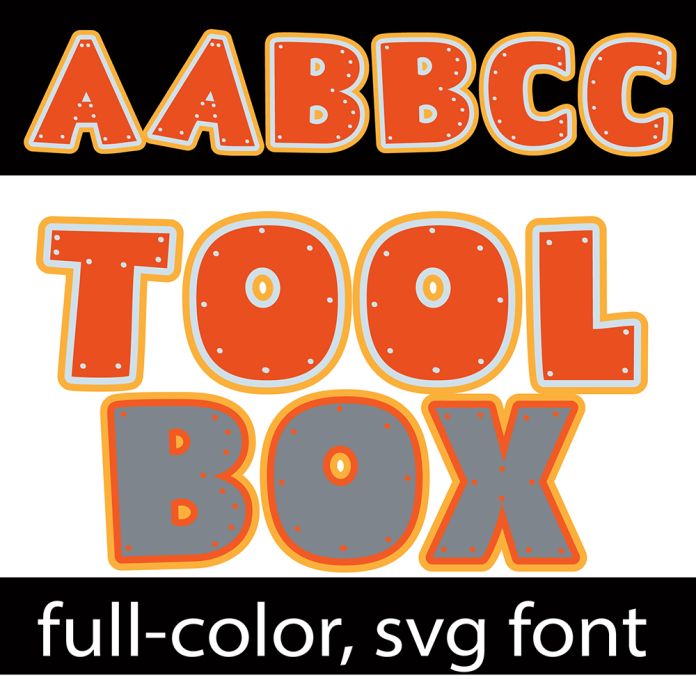
Toolbox Color Font
This full-color font in gray and orange has a toolbox look and feel. There is an alt case w/ additional colors you can access through your system or Silhouette's glyph map. This font works best for titles, displays, posters and more. Please note color fonts will show as black in non compatible programs. This font type is compatible with Silhouette Studio.